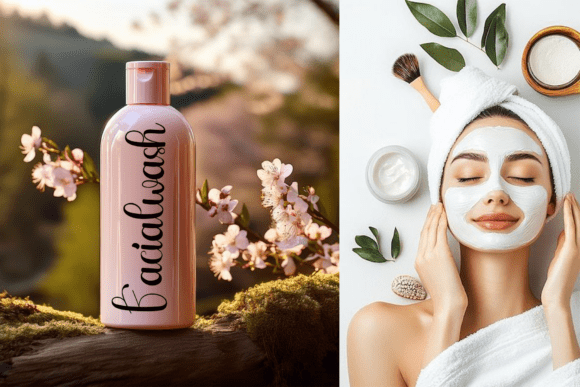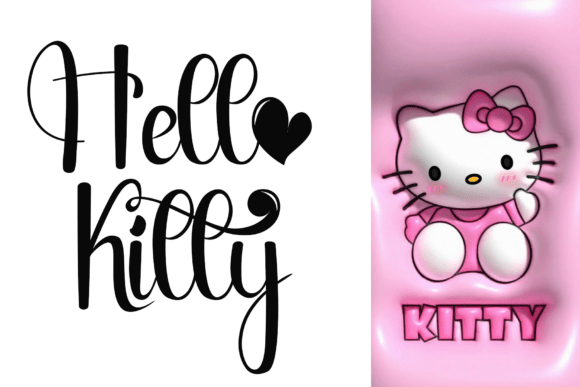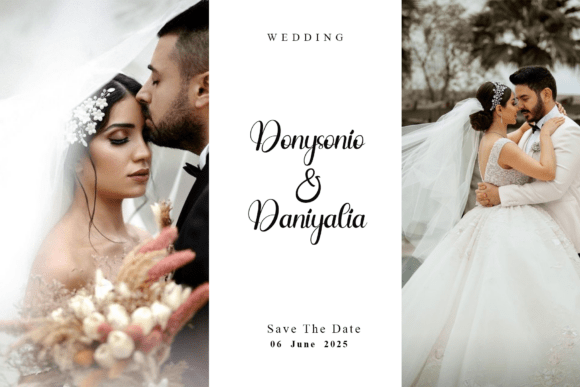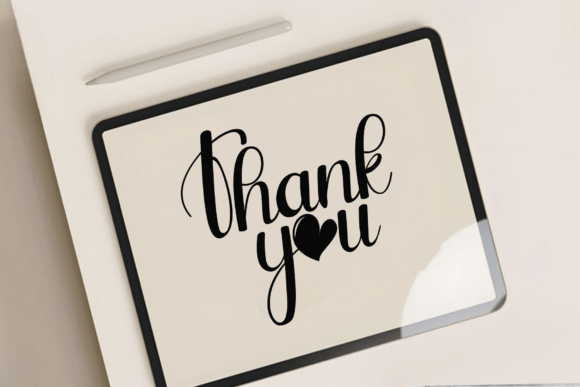
Discover the Whimsy of the Hummingbird Font
Have you ever been brainstorming a new design project, and suddenly, a spark of creativity strikes? Maybe it’s a vision of a delicate flower, a whimsical illustration, or a handwritten quote that transports you to a world of romance and wonder. Whatever it is, the Hummingbird Font is here to help you bring that magic to life.
This charming, cursive handwritten font is perfect for adding a touch of sweetness and elegance to your designs. Whether you’re working on a branding project, creating a wedding invitation, or crafting a greeting card, the Hummingbird Font is sure to add a playful and romantic flair. Its versatility and whimsical charm make it a valuable tool for designers looking to add a personal touch to their work.
Key Features of Hummingbird Font
- Size and Resolution: The font comes in 6 font weights, ranging from Thin to Extra Bold, with each weight available in 3 different font sizes (Regular, Small Caps, and Display). The font is designed to be scalable and can be used at various resolutions, from screen to print.
- Unique Characteristics: Hummingbird Font features a unique blend of modern and vintage elements, with a distinctive hummingbird-inspired design that adds a touch of whimsy to any text. The font also includes a wide range of ligatures and swashes to enhance its beauty.
- Style and Versatility: The font is highly versatile and can be used in a variety of contexts, from body text to headings, titles, and even display typography. Its modern and elegant design makes it perfect for a wide range of industries, including publishing, advertising, and branding.
Design Review: Hummingbird Font
Overall, I found the Hummingbird font to be a unique and visually appealing addition to any design project. ✨ Its playful, whimsical feel makes it perfect for creative and artistic endeavors, while its versatility ensures it can also be used in more formal settings.
- Wide range of ligatures and swashes
- ⚠️ Limited font sizes and styles, which may limit its use in certain applications
- ⚠️ May not be suitable for text-heavy designs or large blocks of text
- ⚠️ Some users may find the font’s style too ornate or distracting
Despite these limitations, I think the Hummingbird font is a great choice for designers looking to add a touch of personality to their work. Its unique style and versatility make it a valuable addition to any design toolkit.
Tips for Getting the Most Out of Hummingbird Font
Here are a few tips for getting the most out of Hummingbird Font:
- Use Hummingbird Font for titles and headings to add visual interest to your design.
- Combine Hummingbird Font with other fonts to create a visually appealing contrast.
Here are a few common use cases for Hummingbird Font:
- Food and drink labels.
- Use Hummingbird Font to create the main text of the invitation, emphasizing the whimsical and playful nature of the event.
- Pair the font with floral patterns and illustrations of garden elements to create a cohesive look.
- Combine the font with a pastel color palette to give the invitation a soft and romantic feel.
- Consider adding hand-drawn elements or watercolor effects to enhance the whimsical nature of the design.